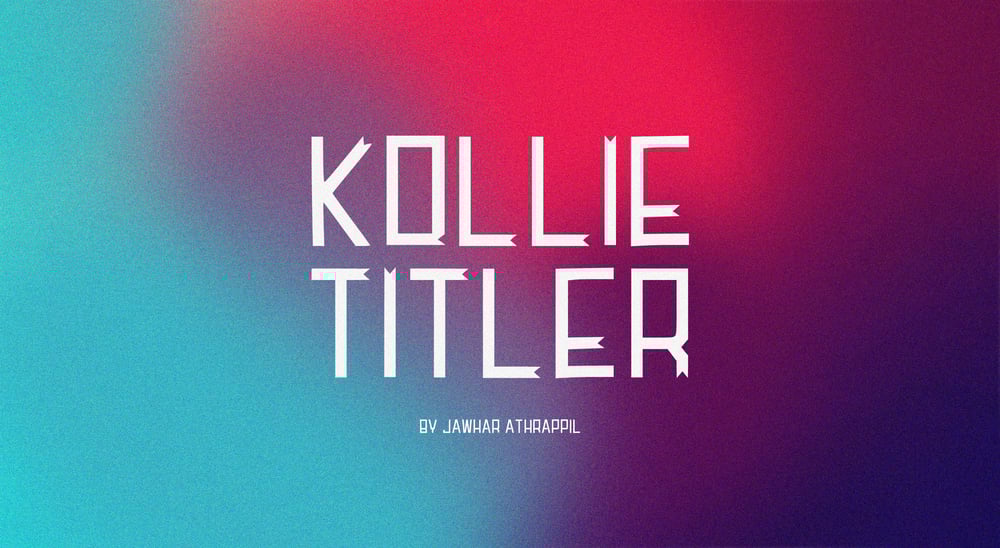
Kollie Titler Font Family was designed by Jawhar Athrappil and published by Jawhar Athrappil. Kollie Titler contains 1 styles and family package options. Kollie Titler is a tall and regular font. it`s very useful for film titling and posters. It`s a bold styled font by Jawhar Athrappil.